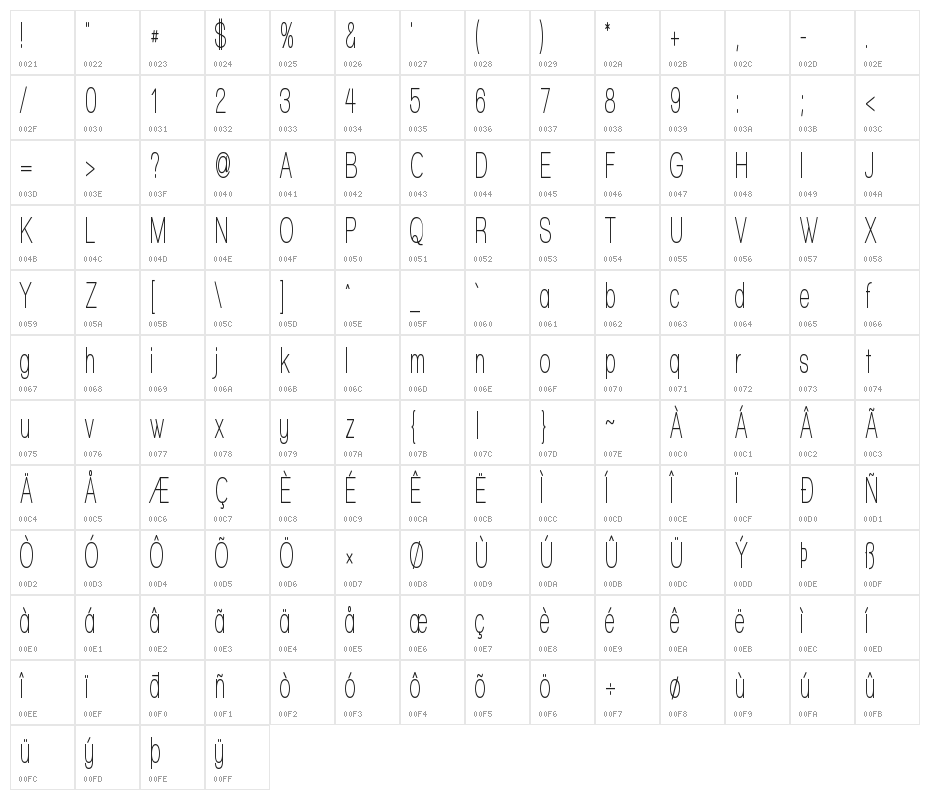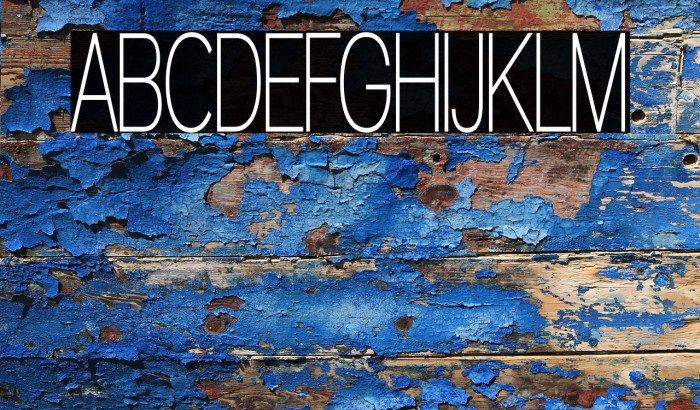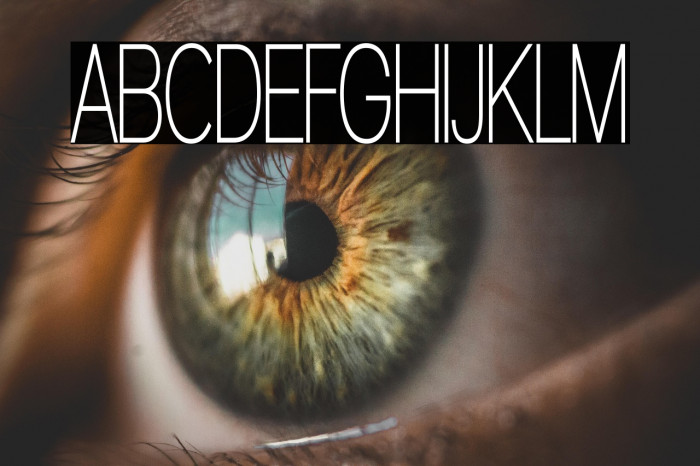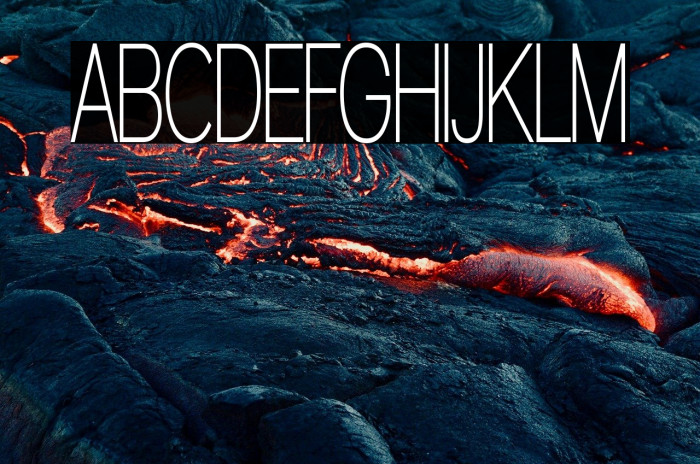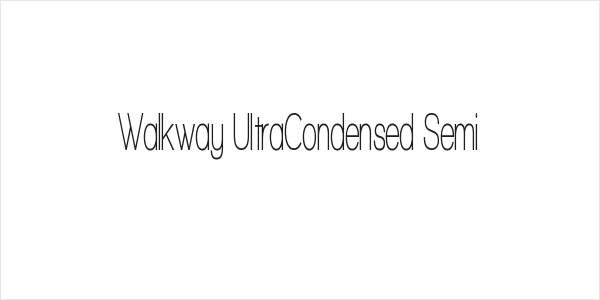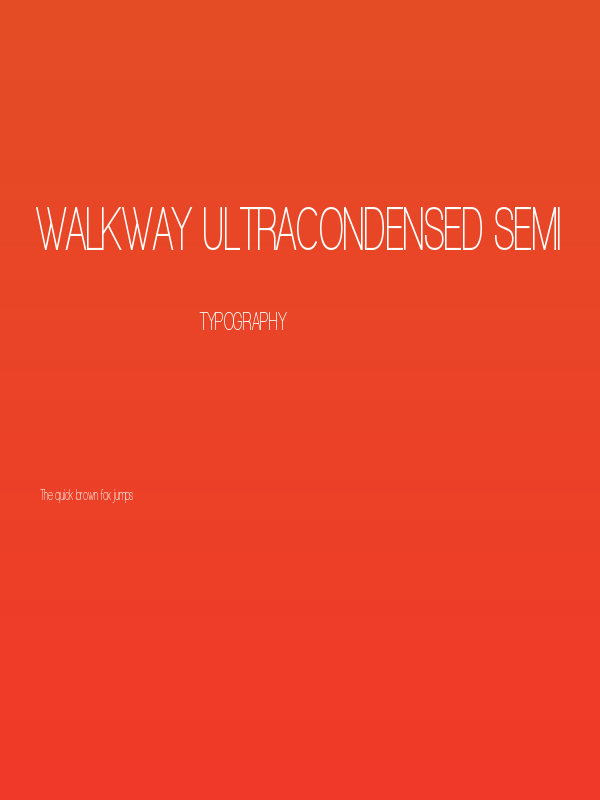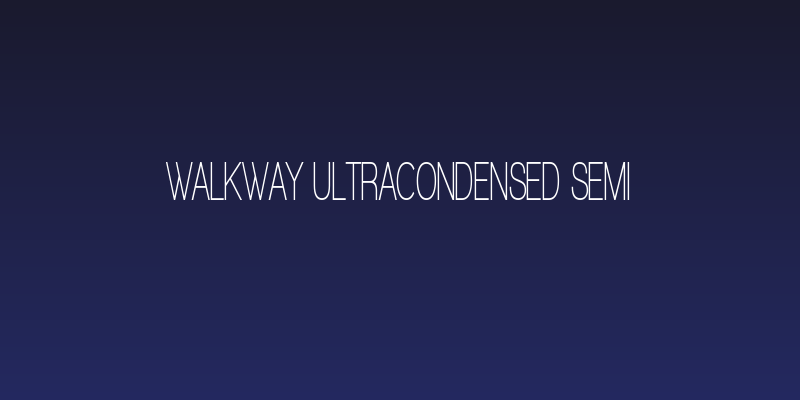
Walkway UltraCondensed Semi Font
Walkway UltraCondensed Semi Description
This font features an ultra-condensed style with tall, narrow letterforms that emphasize verticality. The characters are sleek and modern, with a minimalistic design that lacks any serifs or decorative elements. The clean lines and uniform stroke width give it a contemporary and streamlined appearance. The uppercase and lowercase letters maintain a consistent height ratio, contributing to its cohesive look. The numerals and special characters are designed to match the overall aesthetic, ensuring a harmonious visual presentation. This font is ideal for projects that require a modern and sophisticated touch.